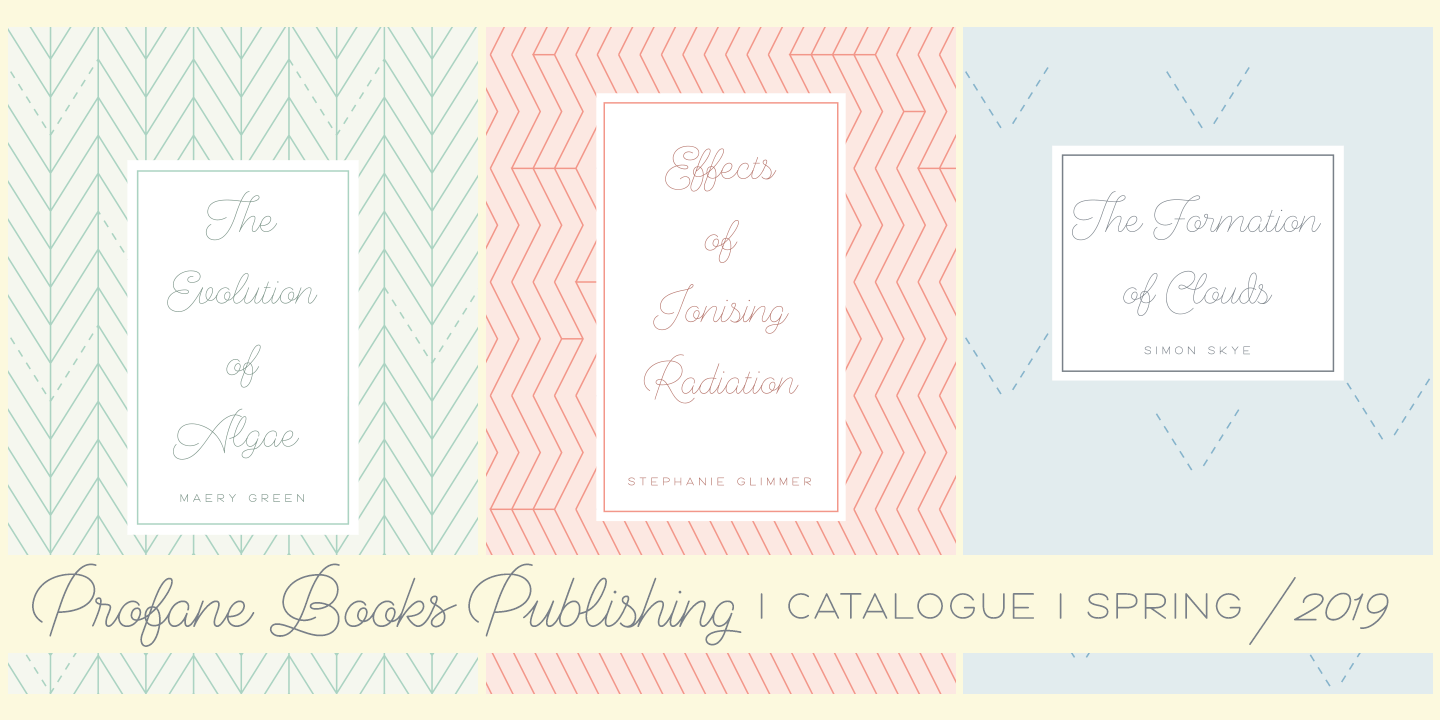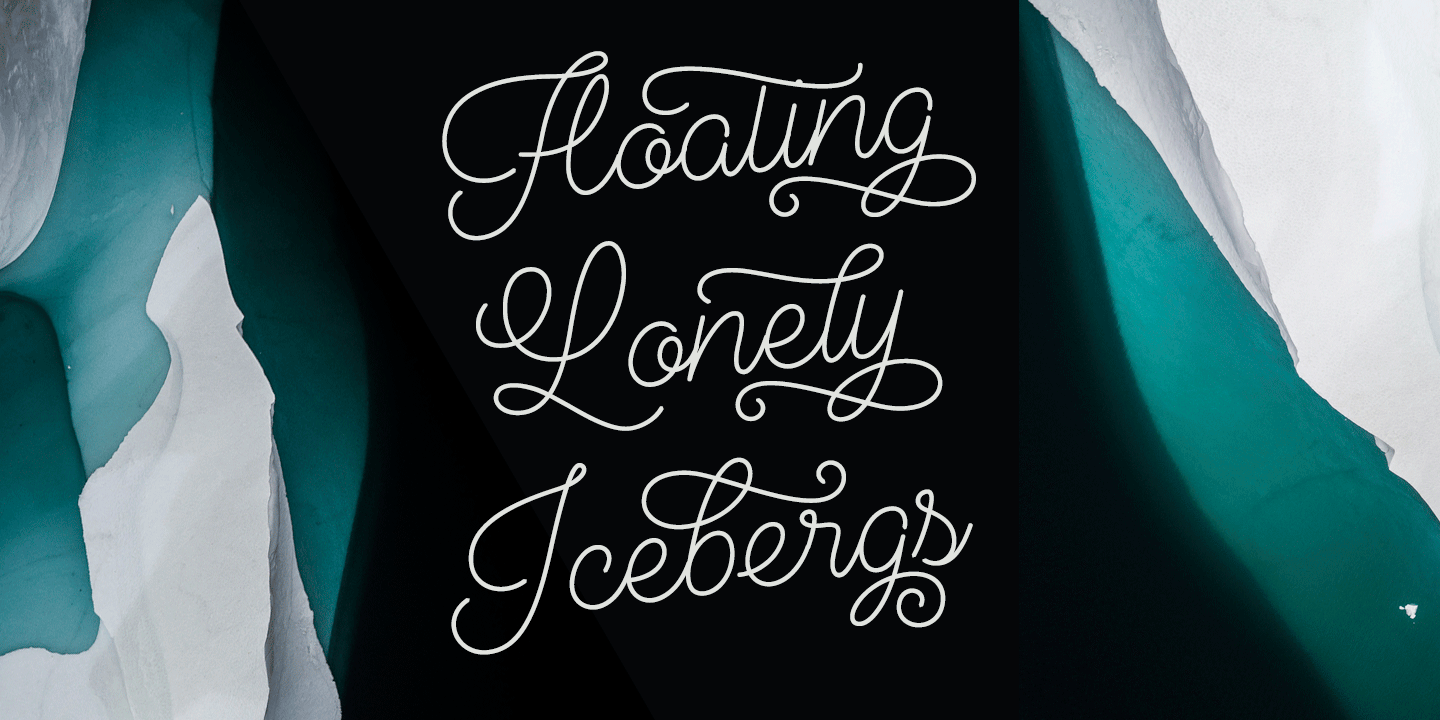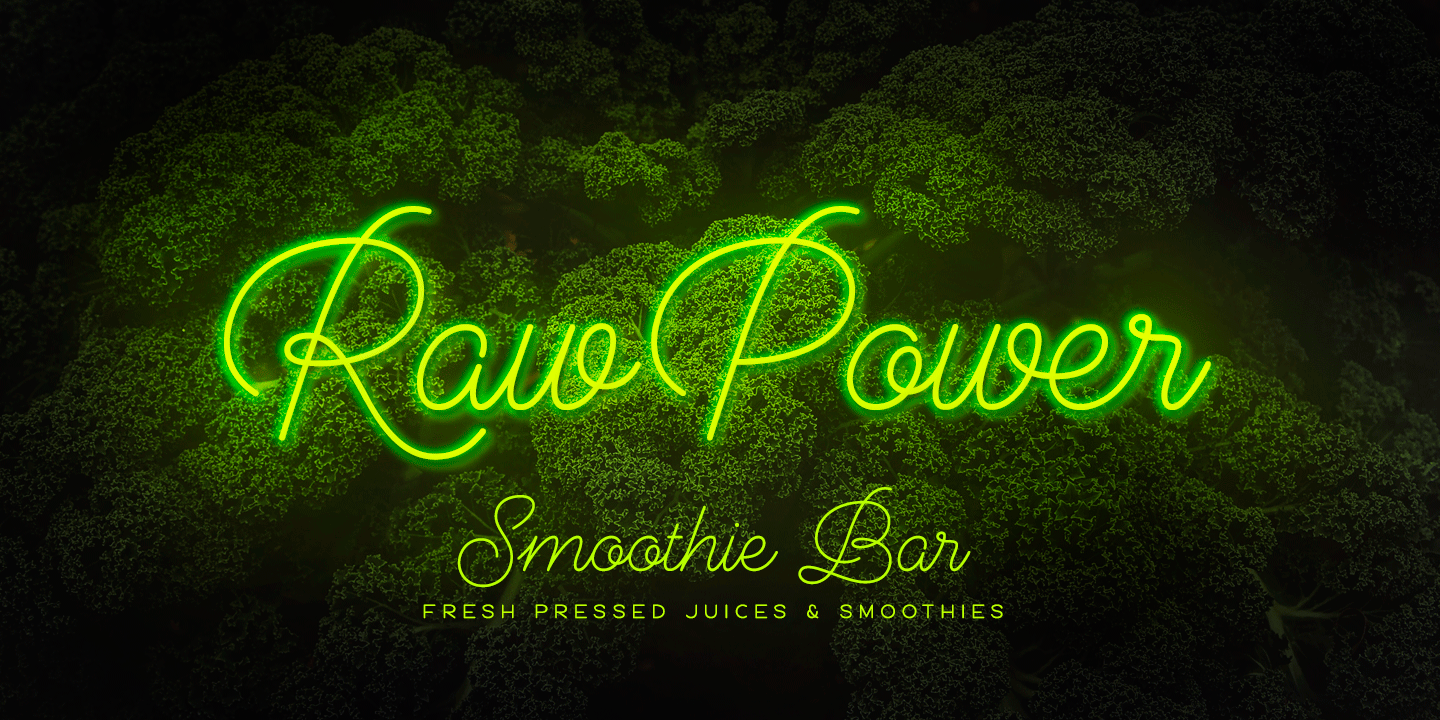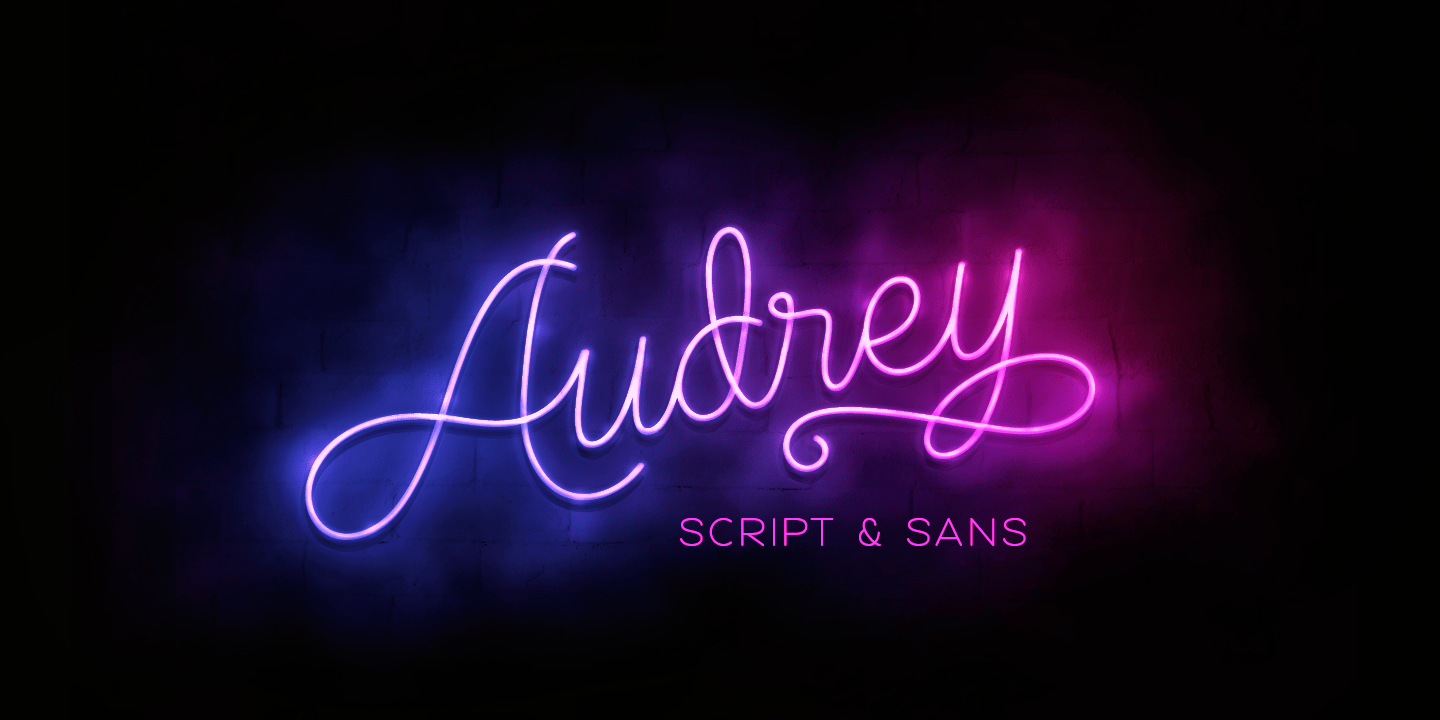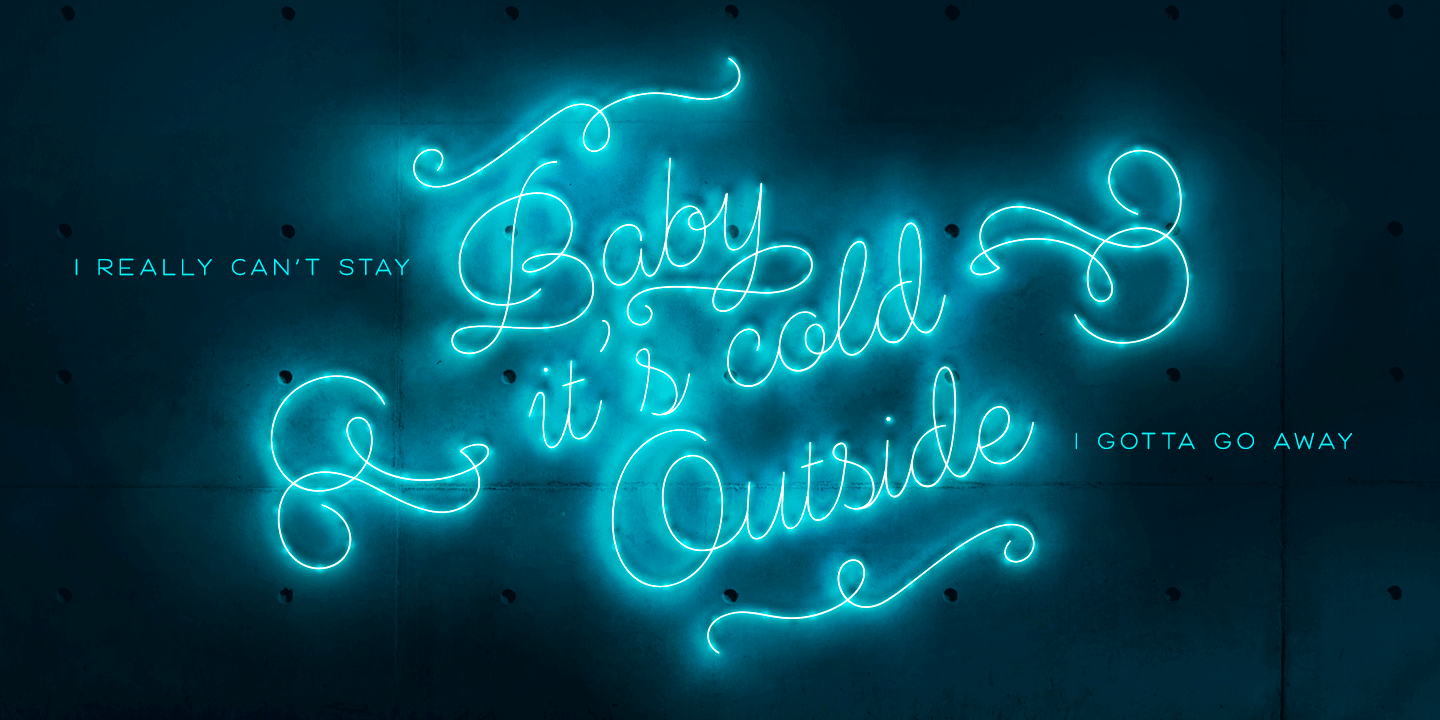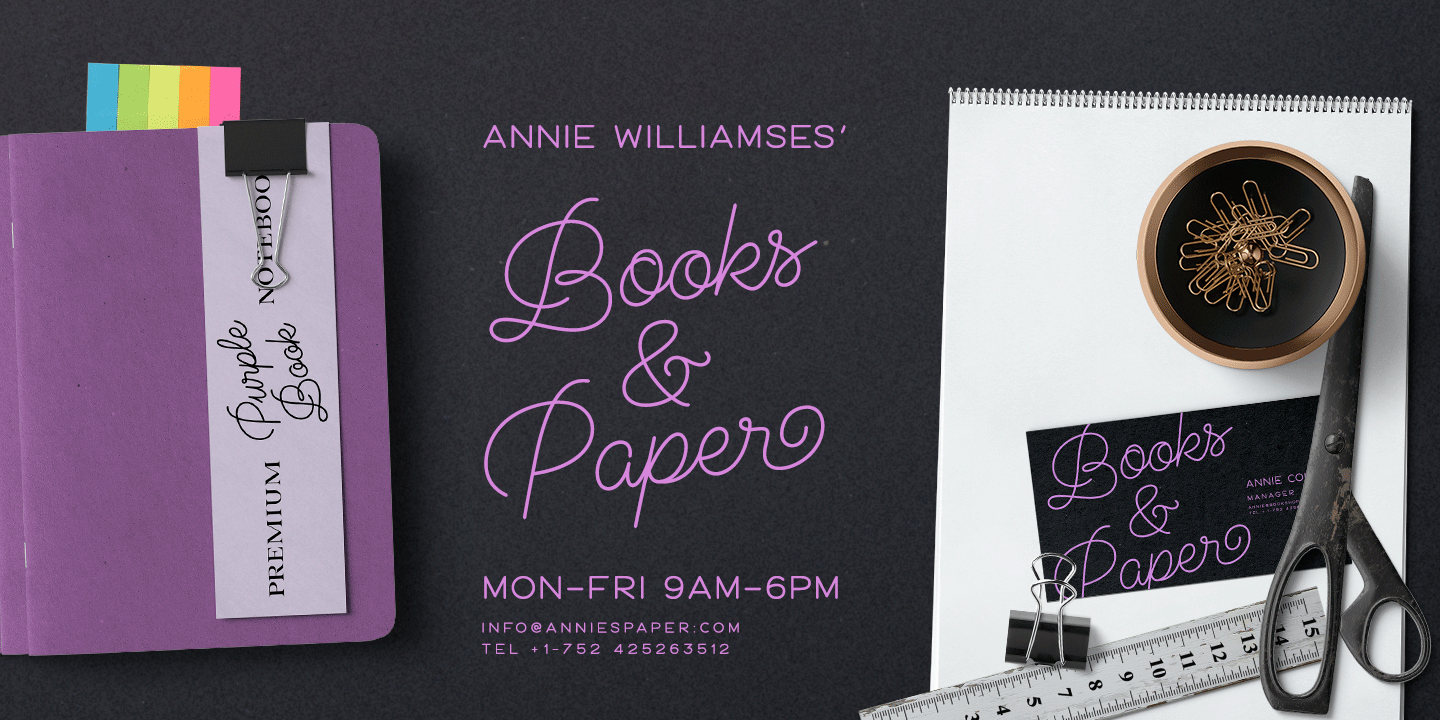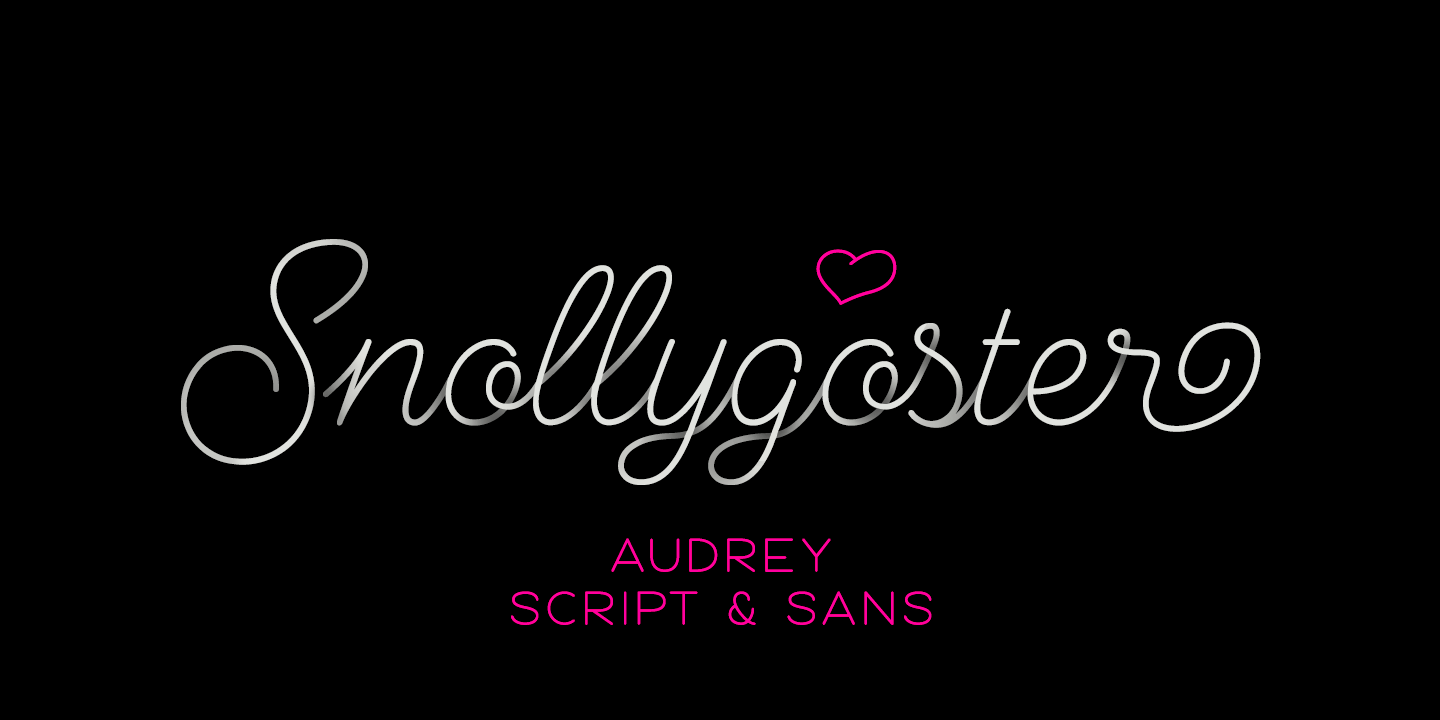
About Audrey
Audrey is an elegant monolinear Script and Sans font family. Audrey is great for designing headlines, packaging or as a logotype online or offline. Audrey has three weights of Script and Sans and a set of Ornaments. The weights go following: Regular…